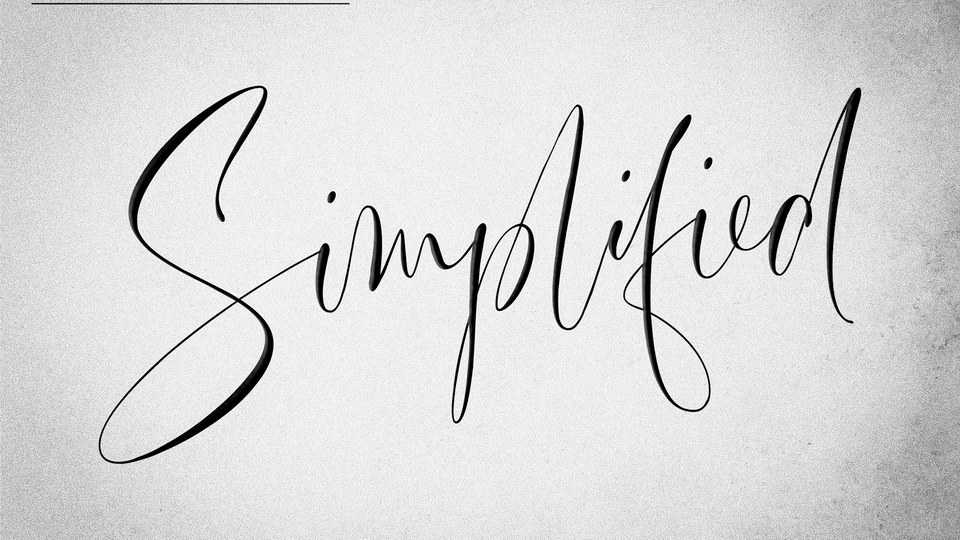
Simplified Script Font › Fontesk – Download Grátis
Download Simplified font, a lifestyle and casual luxury handwritten typeface with a natural free flow. Simplified font is great for creating signature logos and watermarks for photography studio, headline, wedding invitation, etc.